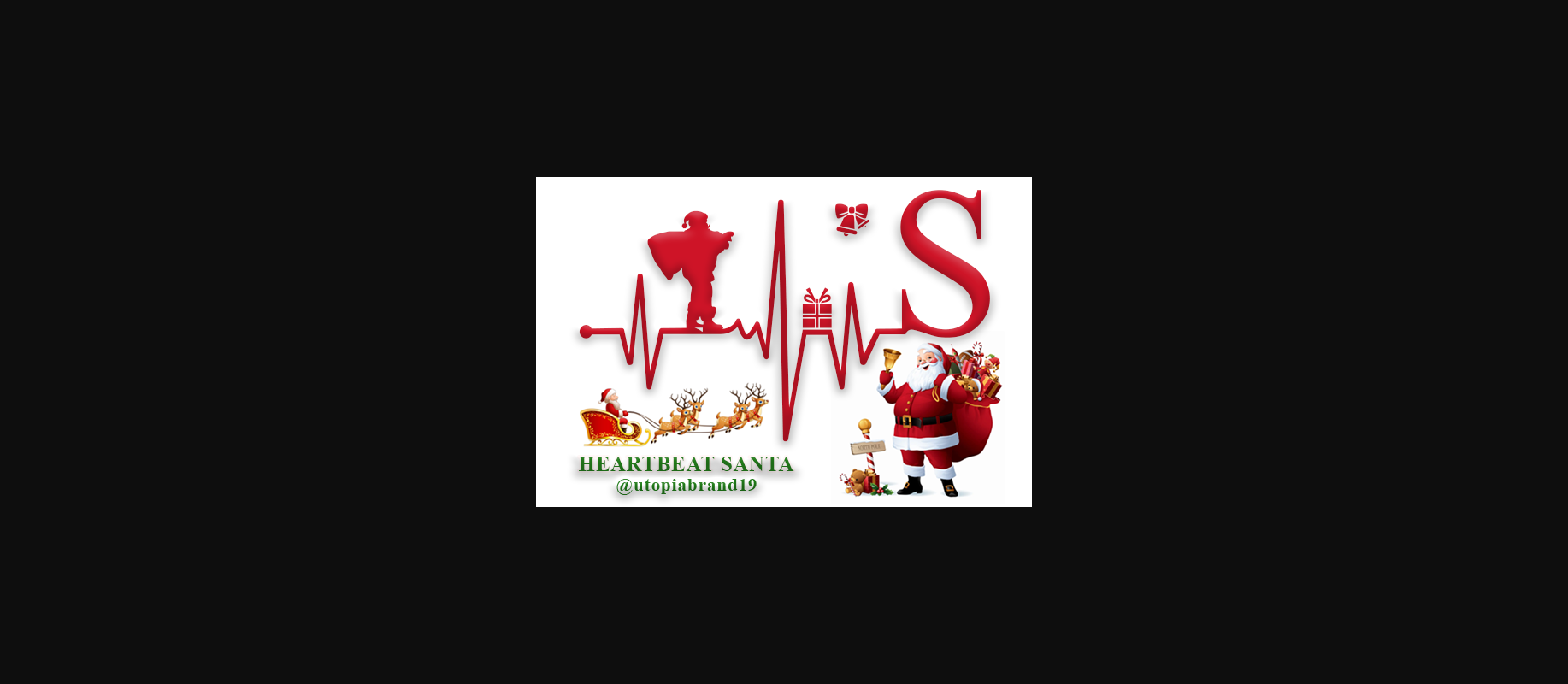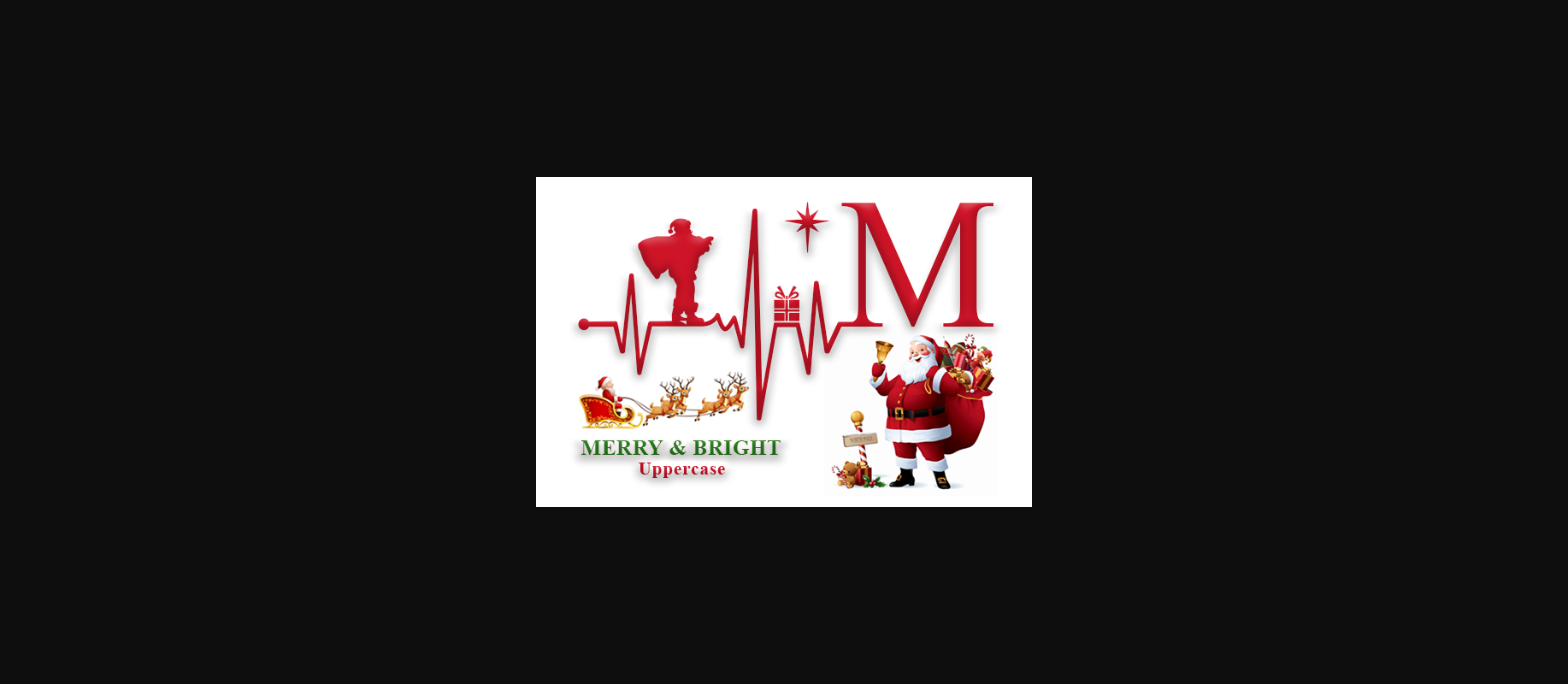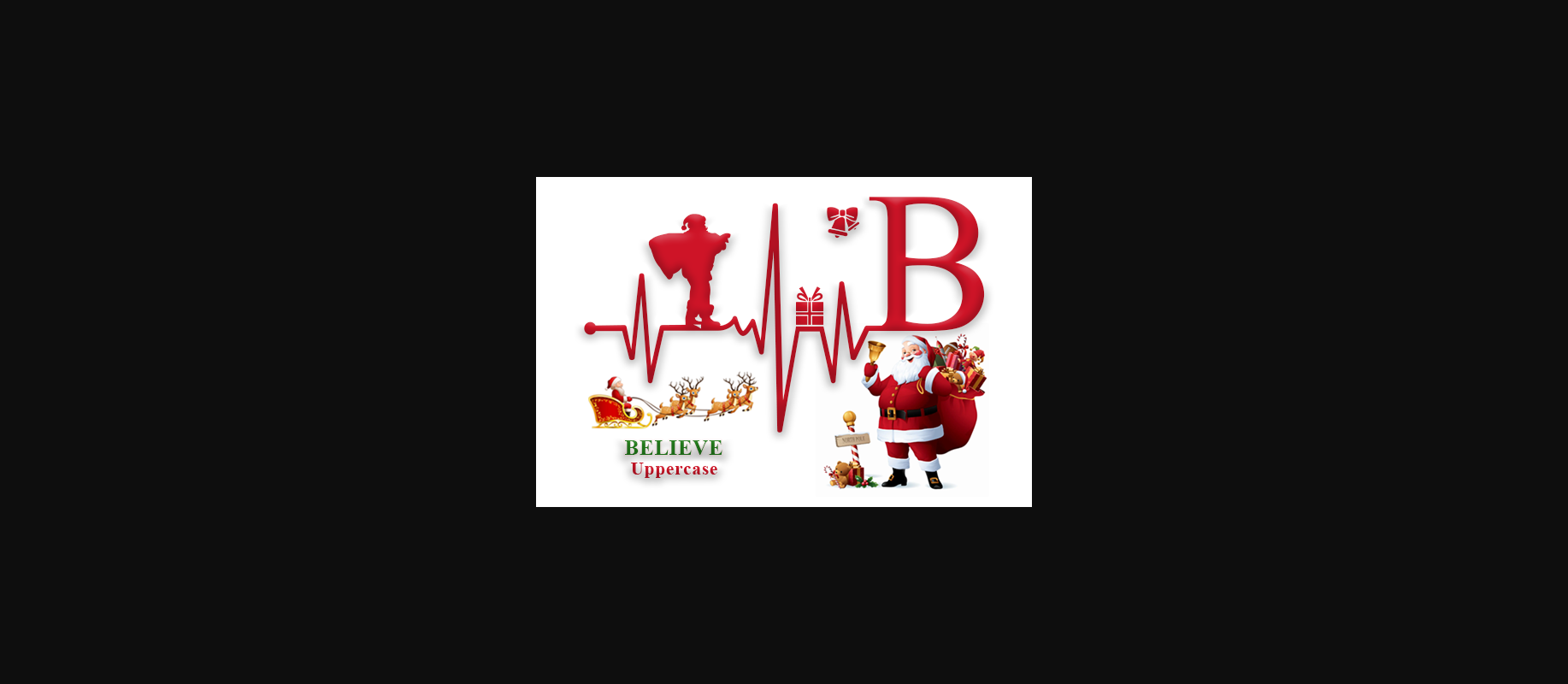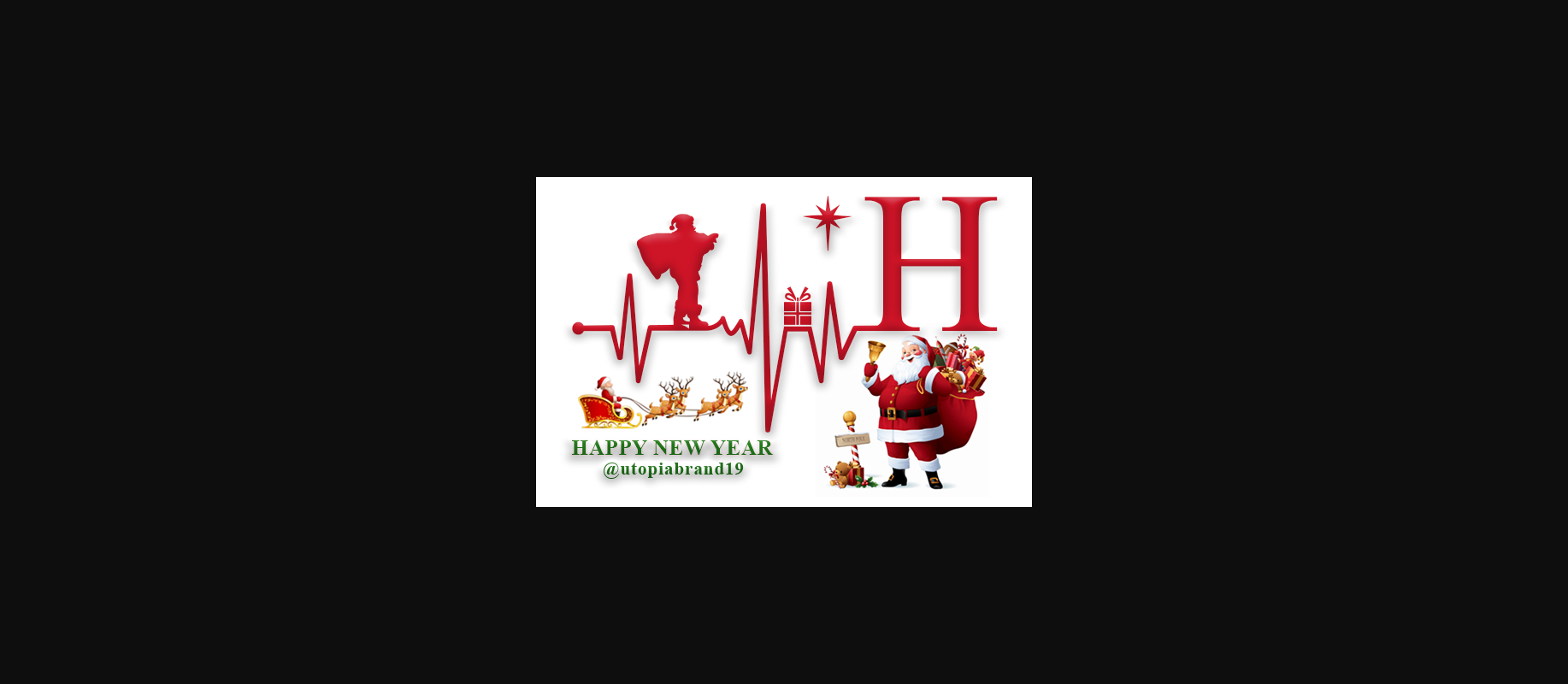
About Monogram Heartbeat Santa Font
Monogram Heartbeat Santa is a highly detailed, unique and interestingly designed decorative font. Whether you use it for cartoon related designs, children games or just any creation that requires a lovely touch, this font will be an amazing choice.